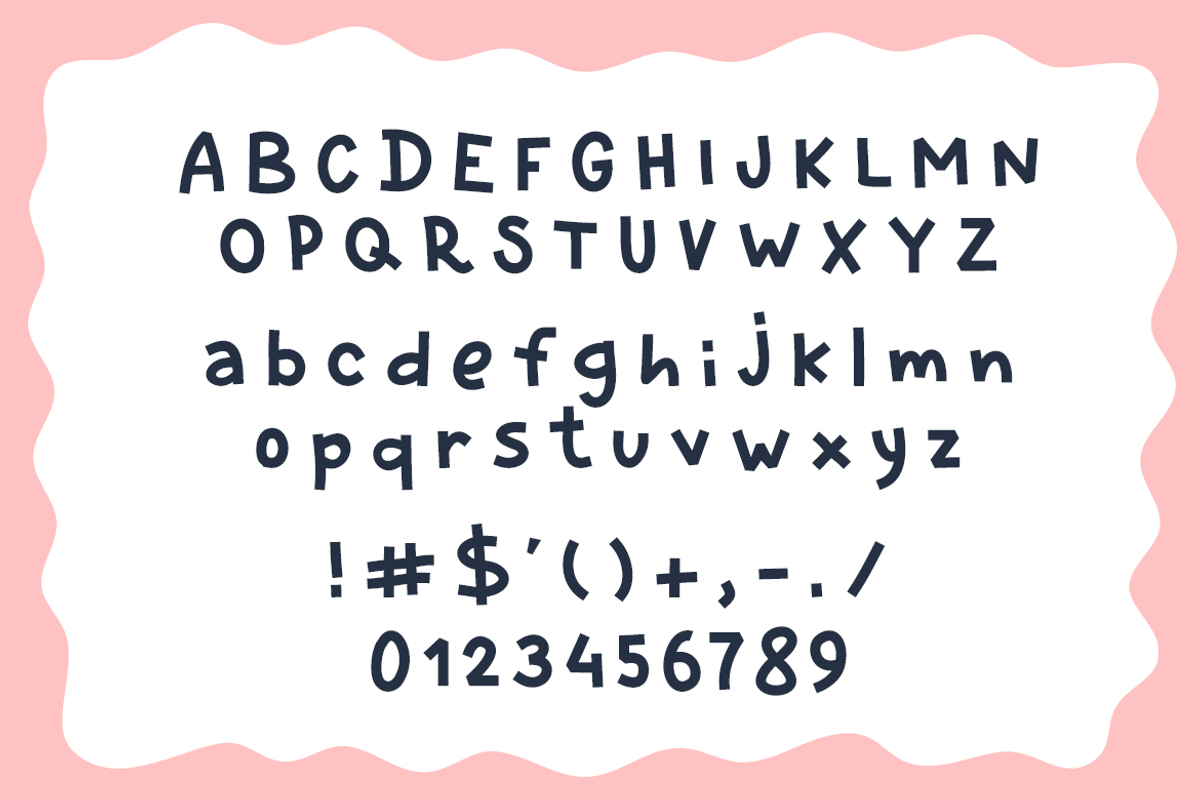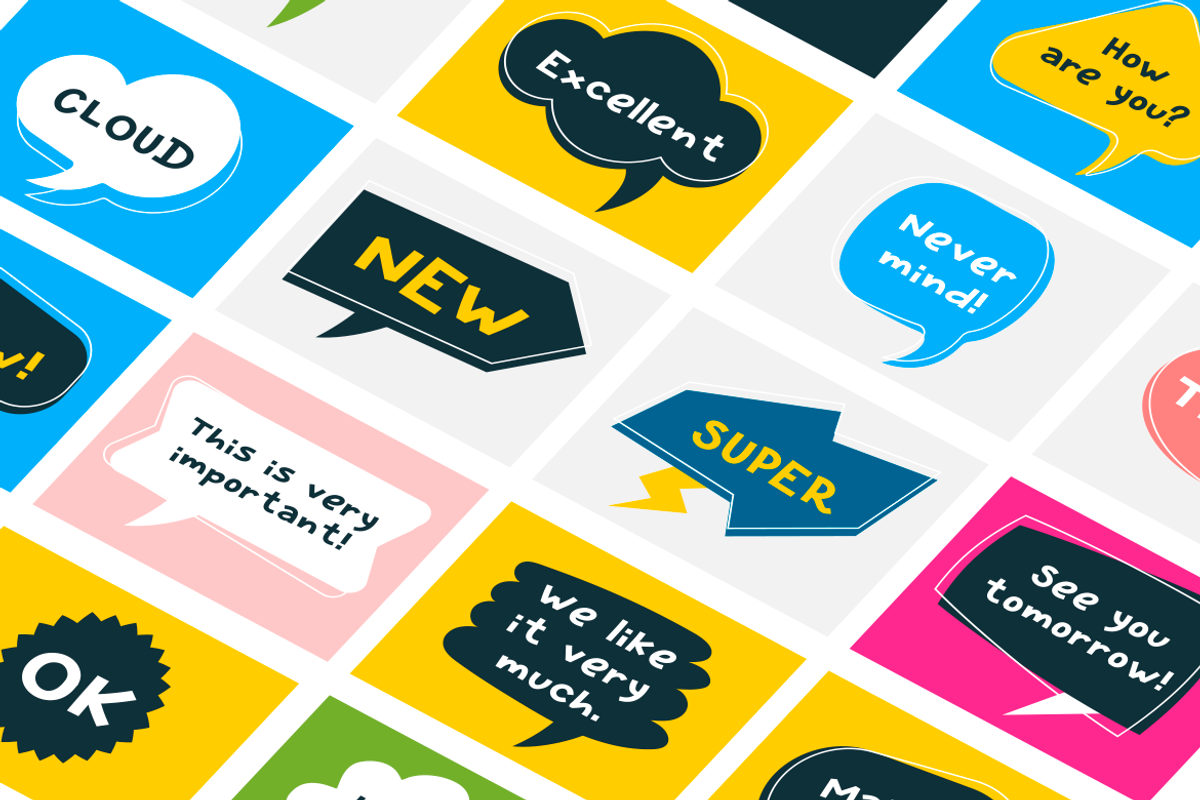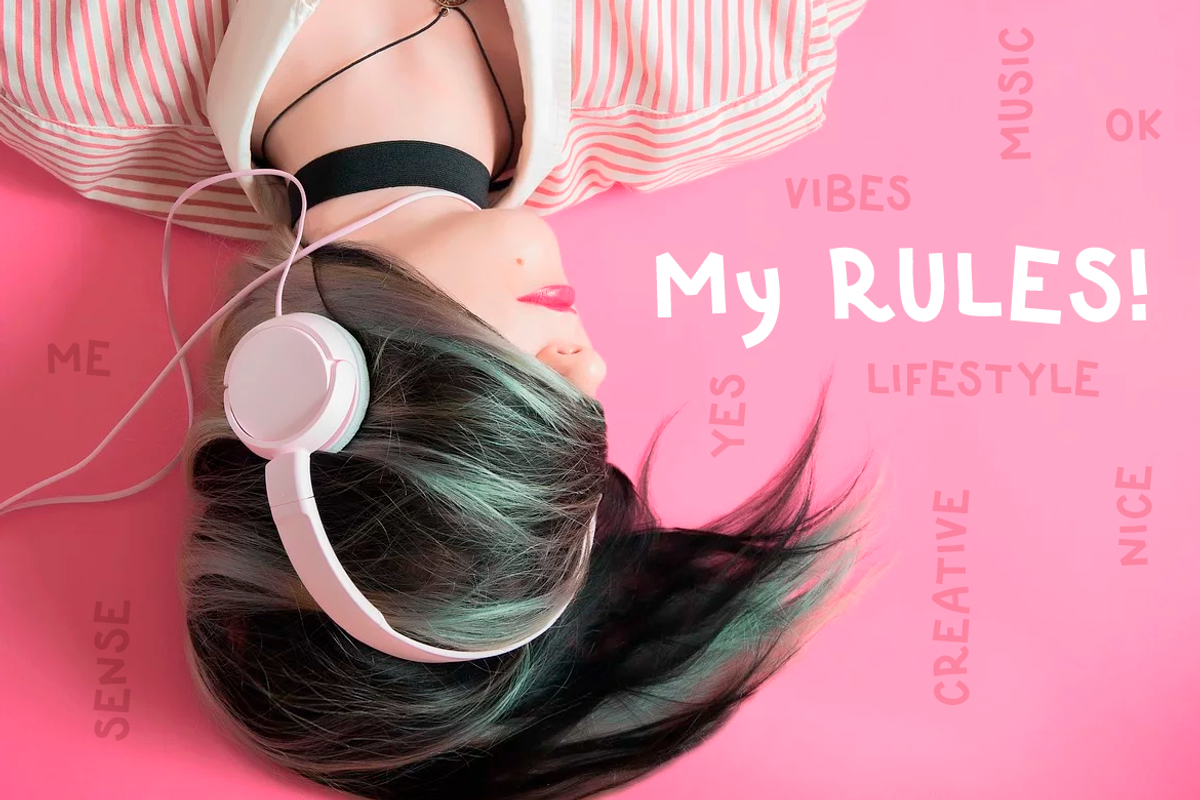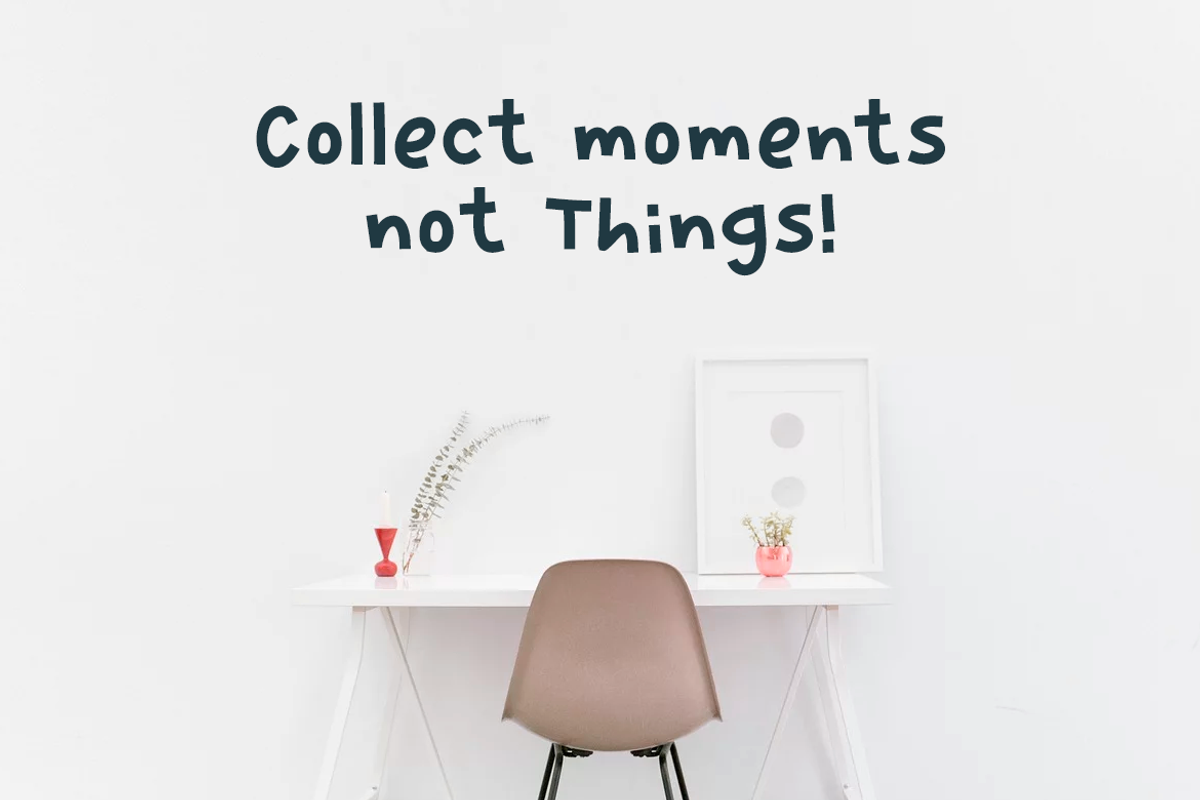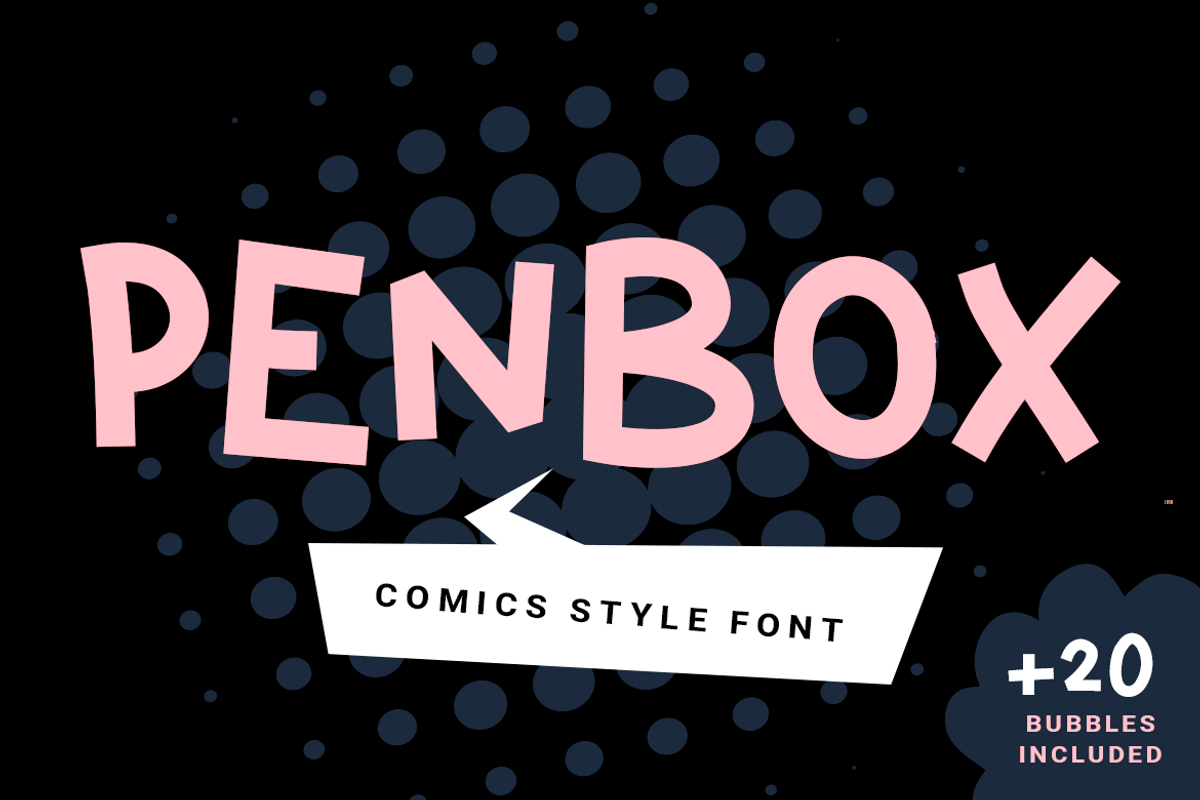
Penbox| comics style font
Penbox is a comics sans serif playful font designed with thick letters. The font is bold and joyful, it works great to make short fun titles.
- uppercase letters
- lowercase letters
- numbers & punctuation
- 20 colorful speech bubbles